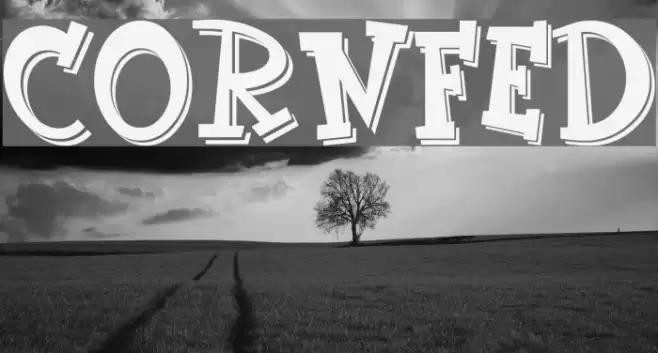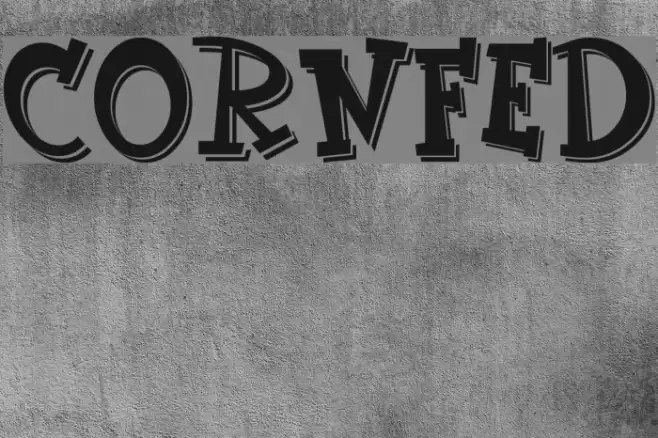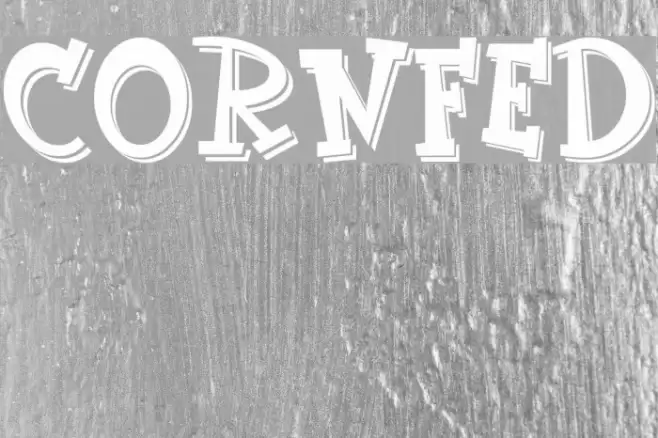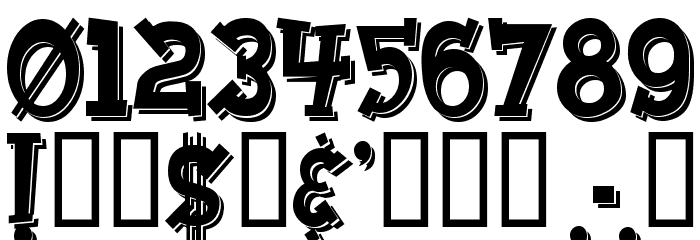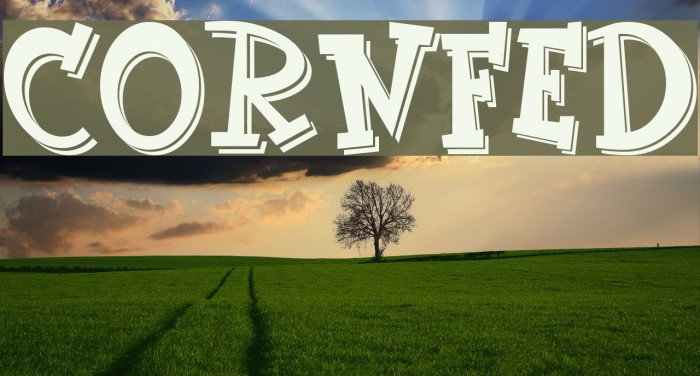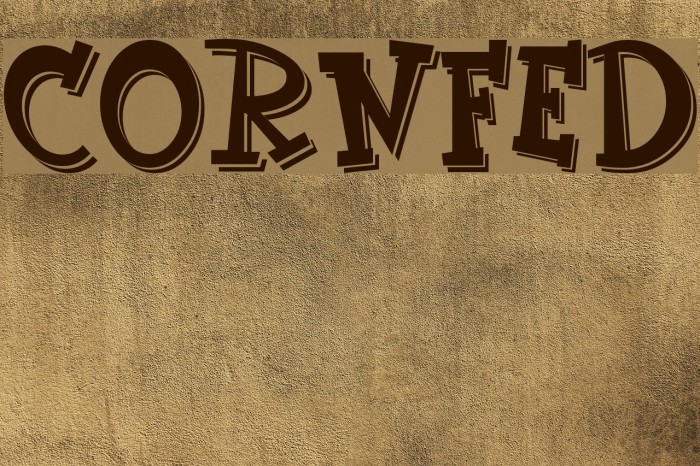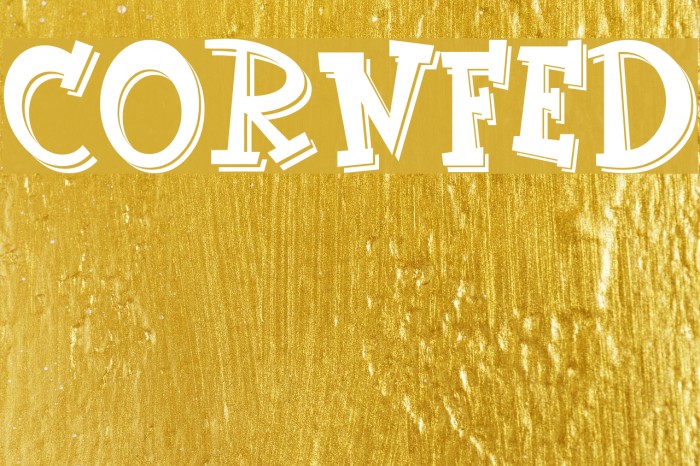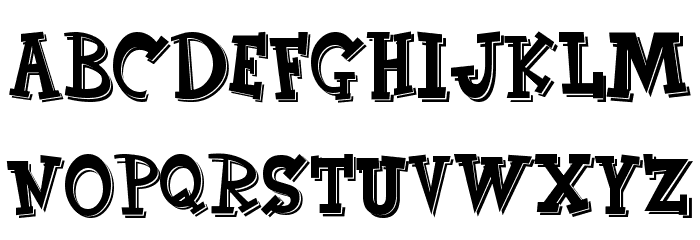
CornFed Font
CornFed Description
This font features a bold and playful design, characterized by its thick, blocky letters with a slight slant. Each character is outlined, adding a shadow effect that enhances its three-dimensional appearance. The font combines a sense of fun with a touch of retro style, making it suitable for eye-catching designs. The uppercase and lowercase letters maintain a consistent style, while the numerals and special characters are equally bold and dynamic. The overall look is both robust and whimsical, perfect for projects that require a strong visual impact.
A bold, playful font with a retro, three-dimensional style from 3D fonts.
- Proposed Projects: Ideal for posters, comic books, children's books, and playful branding.
- Overall Style: Playful, Retro